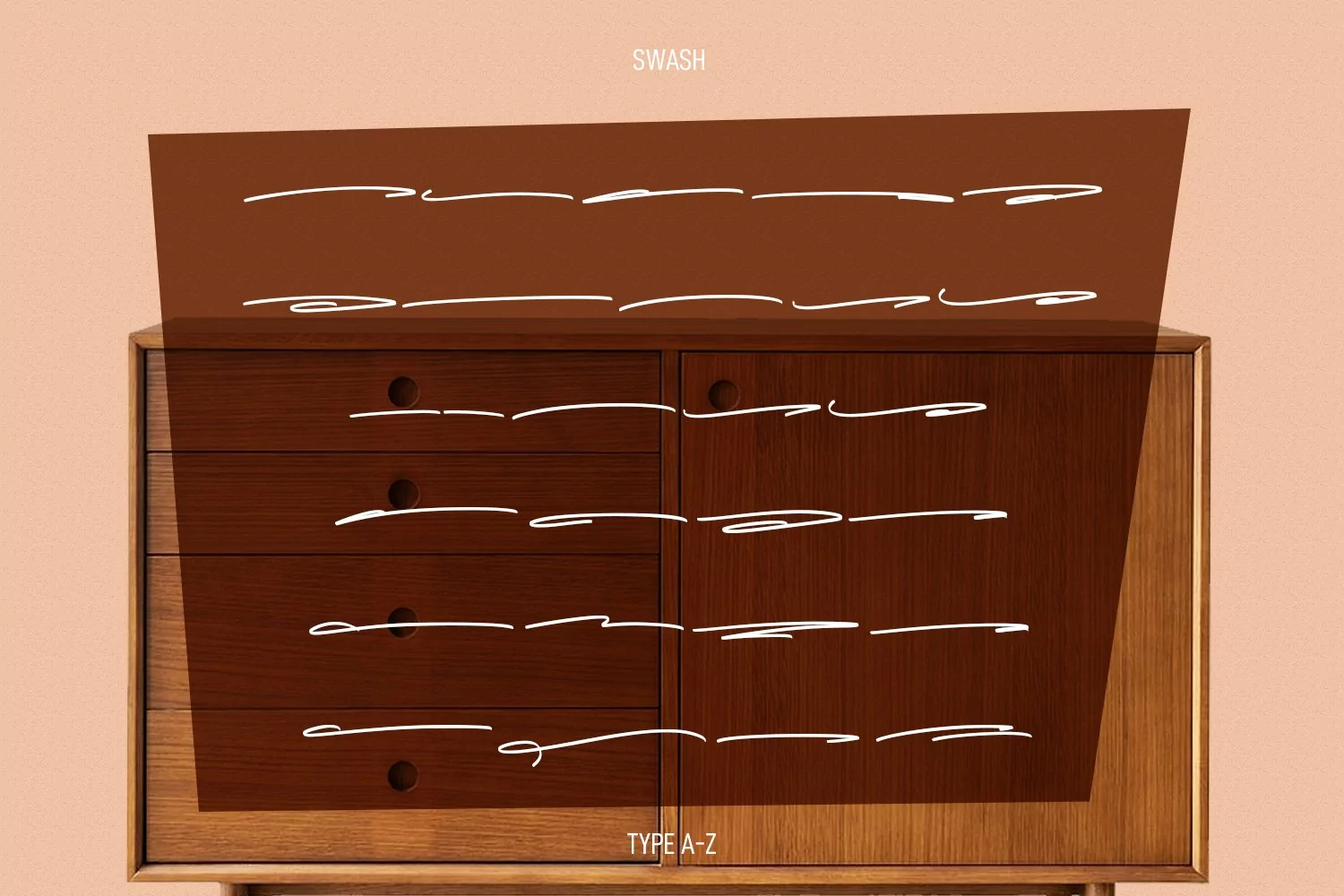
Southgreat is an expressive signature script font. With regular felt-tip stroke, fun character with some of ligatures and extra swash. To give you an extra creative work. Southgreat font support multilingual more than 100+ language. This font is good for logo design, Social media, Movie Titles, Books Titles, a short text even a long text letter and good for your secondary text font with sans or serif. Make a stunning work with Southgreat font.